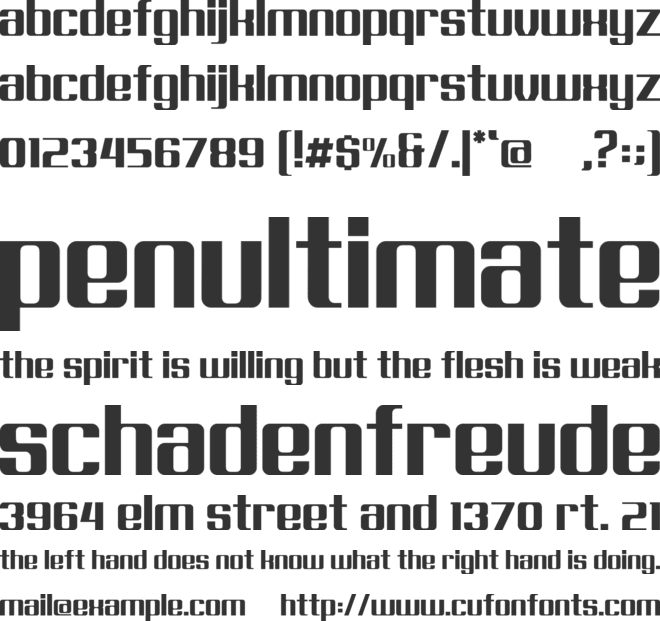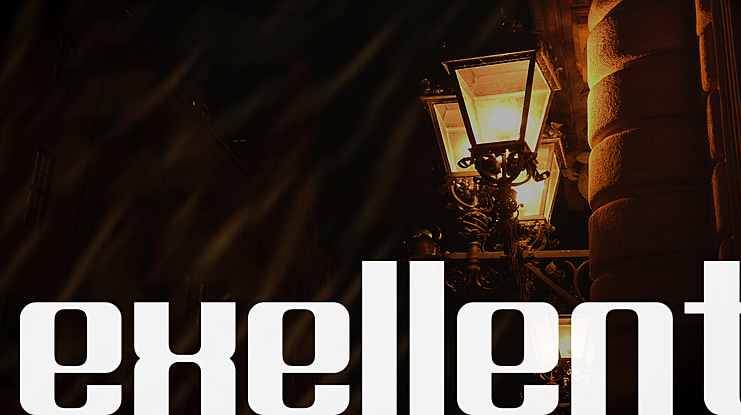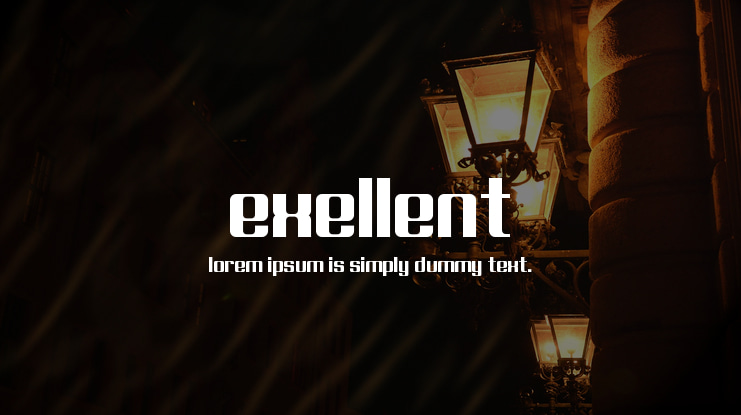
Exellent Font
Hantodiningrat
Proudly present our next font experimental project, called Exellent. Designed spesifically for excellence headlines. All lowercase. You can use it for personal use only. But, if you wanna use it for commercial purpose, feel free to contact me at .